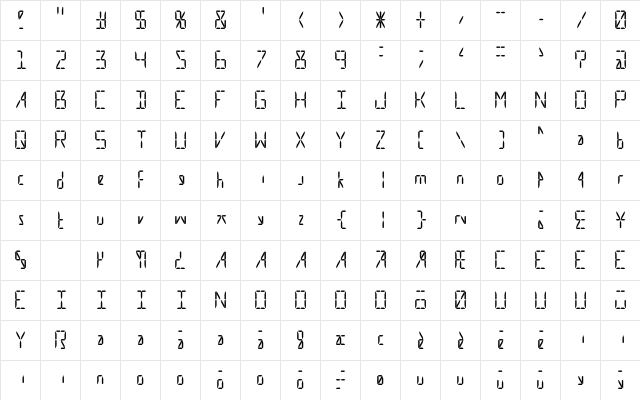
Calculate 16 Even Regular
| Designer | Benjamin Bl̨oltz |
Calculate 16 Even is a composed and adaptable typeface that performs quietly and consistently across a wide range of design contexts.